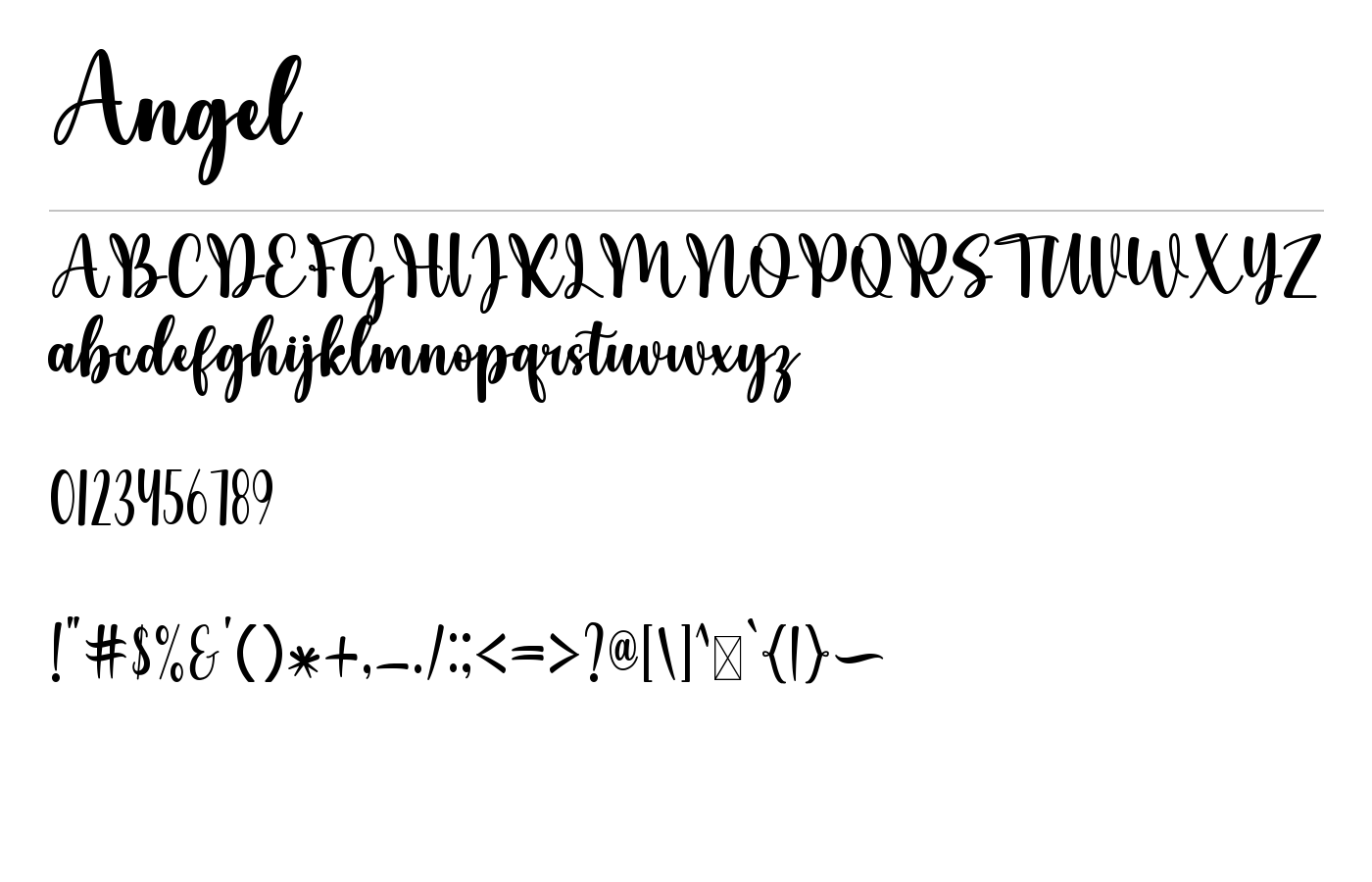
Angel Font is a lively and elegant script font characterized by its smooth, flowing strokes and medium weight, giving it a warm and inviting feel. Its tall x-height and playful letterforms make it perfect for creative branding, invitations, and headlines that require a friendly yet stylish touch. This font shines in projects that want to convey charm, creativity, and a personal, handcrafted vibe.
Angel Font
About Angel Font